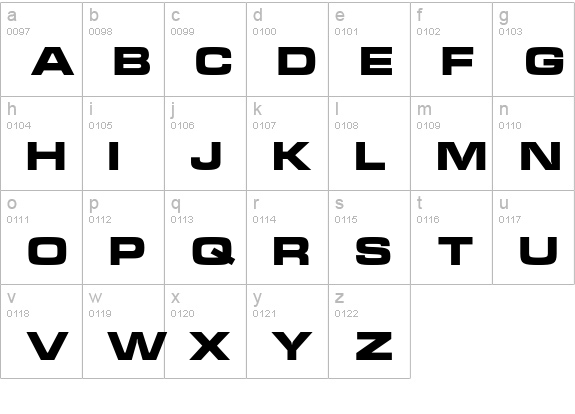
Micra Bold Font Details
Micra Bold is a strong, high-contrast variant in the Micra typeface family \xE2\x80\x94 well suited to headlines, attention-grabbing titles, and strong calls-to-action.
Micra Bold is a versatile and modern typeface that exudes confidence and strength. With its bold and impactful design, this font is perfect for making a statement in any project. Whether you're creating a bold headline, a striking logo, or eye-catching branding materials, Micra Bold is sure to stand out. The clean lines and strong presence of Micra Bold make it a go-to choice for designers looking to make a bold statement. Its legibility and readability ensure that your message will be conveyed clearly and effectively. This font is ideal for a wide range of applications, from print materials to digital designs. Best of all, Micra Bold is available for free download at FontsMarket.com. This means you can easily access this high-quality font and incorporate it into your projects without any cost. Don't miss out on the opportunity to enhance your designs with the bold and impactful Micra Bold font. Download it today and take your creations to the next level.